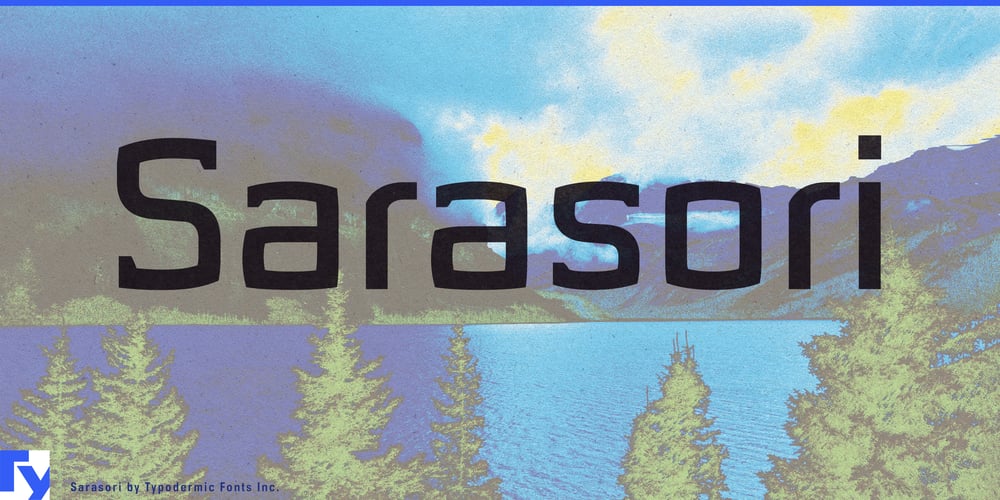
Sarasori Font Family was designed by Ray Larabie and published by Typodermic. Sarasori contains 6 styles and family package options. Introducing Sarasori, a typeface that effortlessly blends modern architecture and high-tech industrial design to bring you a unique and unconventional style. With its rectilinear display and technical serifs, this typeface is perfect for anyone looking to add a touch of precision and surrealism to their message. The machinelike feel of Sarasori is a testament to its precise and clean design. The unconventional letterforms and obscure vector logic come together to create a unique and mesmerizing effect that is sure to captivate your audience. Whether you’re designing a logo, a poster, or any other form of visual communication, Sarasori will help you deliver your message with a voice that is both modern and industrial. Sarasori is available in three different weights and italics, making it a versatile typeface that can be used for a variety of projects. Its sleek and polished appearance is sure to make a lasting impression, and its technical serifs add an extra layer of sophistication to your designs. So why wait? Embrace the boxy mechanical feel of Sarasori and take your designs to the next level with this unique and modern typeface. Order now and discover the surreal and precise voice that Sarasori can bring to your work. Most Latin-based European writing systems are supported, including the following languages. Afaan Oromo, Afar, Afrikaans, Albanian, Alsatian, Aromanian, Aymara, Bashkir (Latin), Basque, Belarusian (Latin), Bemba, Bikol, Bosnian, Breton, Cape Verdean, Creole, Catalan, Cebuano, Chamorro, Chavacano, Chichewa, Crimean Tatar (Latin), Croatian, Czech, Danish, Dawan, Dholuo, Dutch, English, Estonian, Faroese, Fijian, Filipino, Finnish, French, Frisian, Friulian, Gagauz (Latin), Galician, Ganda, Genoese, German, Greenlandic, Guadeloupean Creole, Haitian Creole, Hawaiian, Hiligaynon, Hungarian, Icelandic, Ilocano, Indonesian, Irish, Italian, Jamaican, Kaqchikel, Karakalpak (Latin), Kashubian, Kikongo, Kinyarwanda, Kirundi, Kurdish (Latin), Latvian, Lithuanian, Lombard, Low Saxon, Luxembourgish, Maasai, Makhuwa, Malay, Maltese, Māori, Moldovan, Montenegrin, Ndebele, Neapolitan, Norwegian, Novial, Occitan, Ossetian (Latin), Papiamento, Piedmontese, Polish, Portuguese, Quechua, Rarotongan, Romanian, Romansh, Sami, Sango, Saramaccan, Sardinian, Scottish Gaelic, Serbian (Latin), Shona, Sicilian, Silesian, Slovak, Slovenian, Somali, Sorbian, Sotho, Spanish, Swahili, Swazi, Swedish, Tagalog, Tahitian, Tetum, Tongan, Tshiluba, Tsonga, Tswana, Tumbuka, Turkish, Turkmen (Latin), Tuvaluan, Uzbek (Latin), Venetian, Vepsian, Võro, Walloon, Waray-Waray, Wayuu, Welsh, Wolof, Xhosa, Yapese, Zapotec Zulu and Zuni.